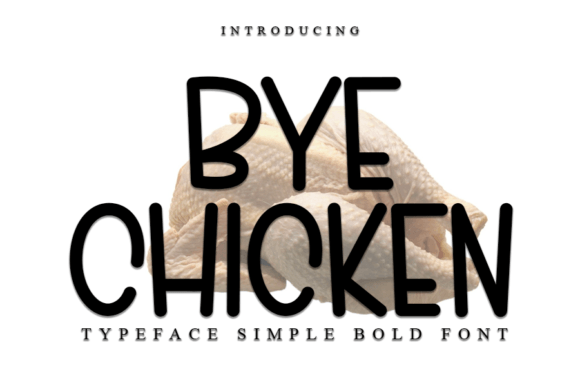
**Introducing Bye Chicken Font: The Ultimate Display Font for Unleashing Your Creativity**
In the realm of digital artistry, fonts hold the power to transform ordinary words into captivating expressions. They possess the ability to evoke emotions, convey messages, and leave lasting impressions. Among the vast array of fonts available, Bye Chicken Font stands tall as a captivating display font, ready to unleash your creativity and bring your design visions to life.
**A Font That Speaks Volumes:**
Bye Chicken Font is not just a collection of letters; it's an artistic masterpiece that speaks volumes. Its bold and distinct characters command attention, making them ideal for headlines, posters, logos, and any project that demands a strong visual impact. Whether you're a seasoned designer or just starting your creative journey, Bye Chicken Font is your perfect companion, ready to elevate your designs to new heights.
**A Versatile Font for Every Occasion:**
Versatility is the hallmark of Bye Chicken Font. Its wide range of applications makes it an indispensable tool for designers of all stripes. Whether you're crafting eye-catching social media posts, designing stunning website layouts, or creating captivating presentations, Bye Chicken Font effortlessly adapts to your needs, ensuring your designs shine with originality.
**A Font That Inspires:**
More than just a font, Bye Chicken Font is a source of inspiration. Its unique and playful style encourages you to think outside the box, explore new creative avenues, and push the boundaries of your imagination. Let Bye Chicken Font be your muse, guiding you towards creating designs that resonate with your audience and leave an indelible mark.
**A Font That's Easy on the Eyes:**
While Bye Chicken Font makes a bold statement, it does so without sacrificing readability. Its carefully crafted characters are designed to be easy on the eyes, ensuring that your message is conveyed clearly and effectively. Whether you're using Bye Chicken Font for long blocks of text or short, impactful phrases, it guarantees a seamless reading experience for your audience.